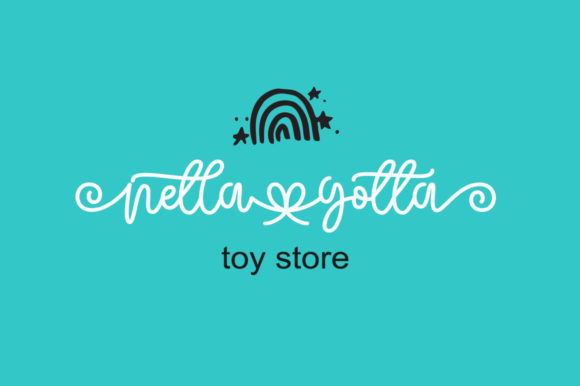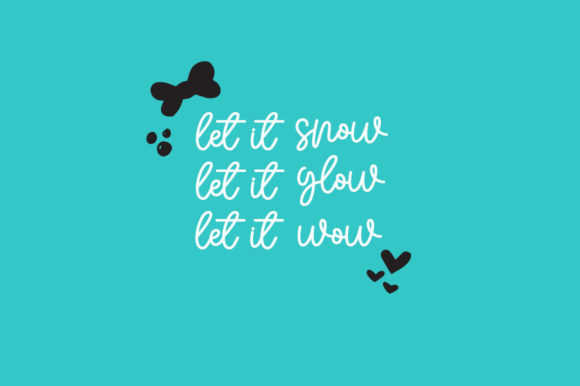
Winter Moon Font
db-ku.com - Script & Handwritten -- Winter Moon is a whimsical script font with a relaxed theme. No matter the topic, this font will be an incredible asset to your fonts’ library, as it has the potential to elevate any creation. Winter Moon is PUA encoded which means you can access all of the glyphs and swashes with ease!